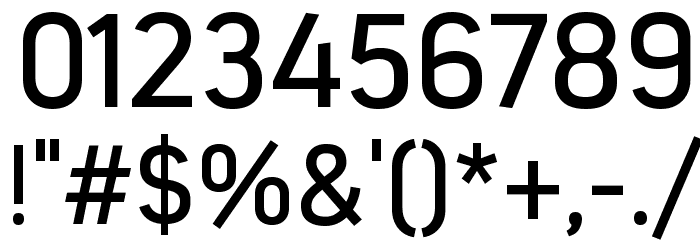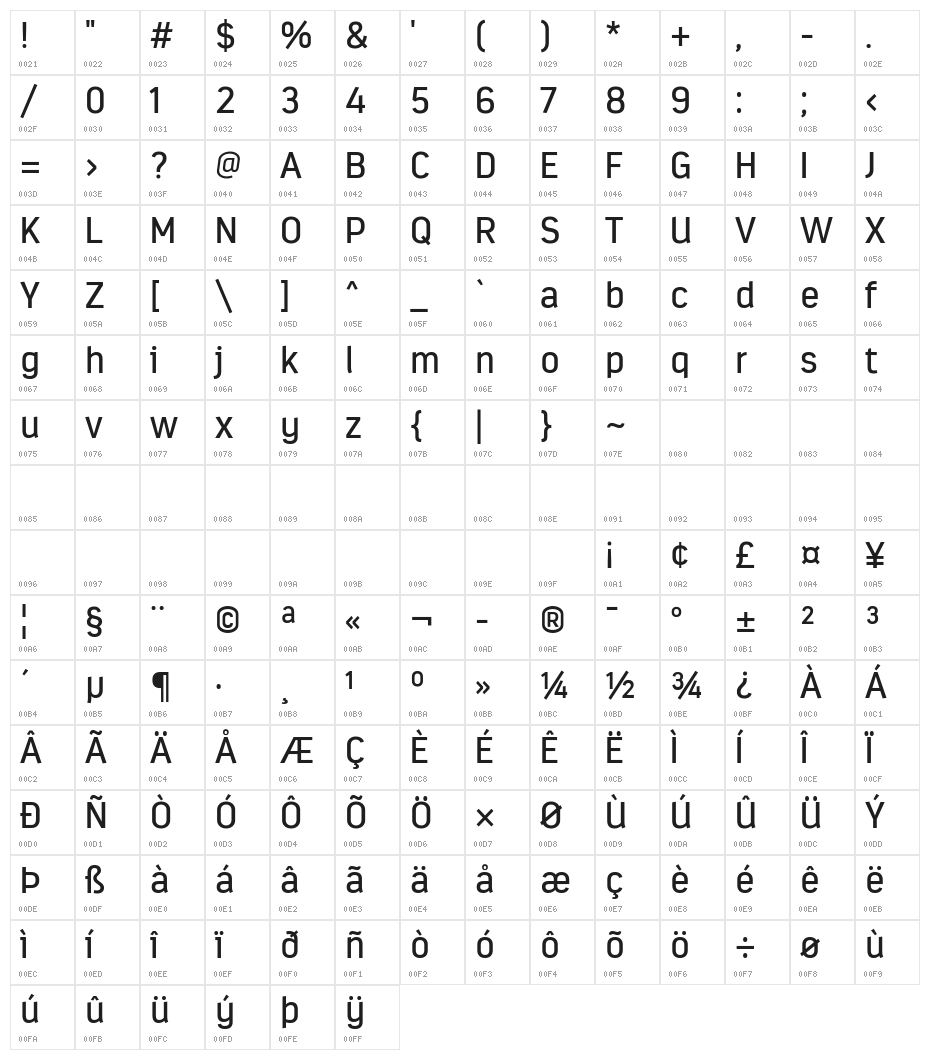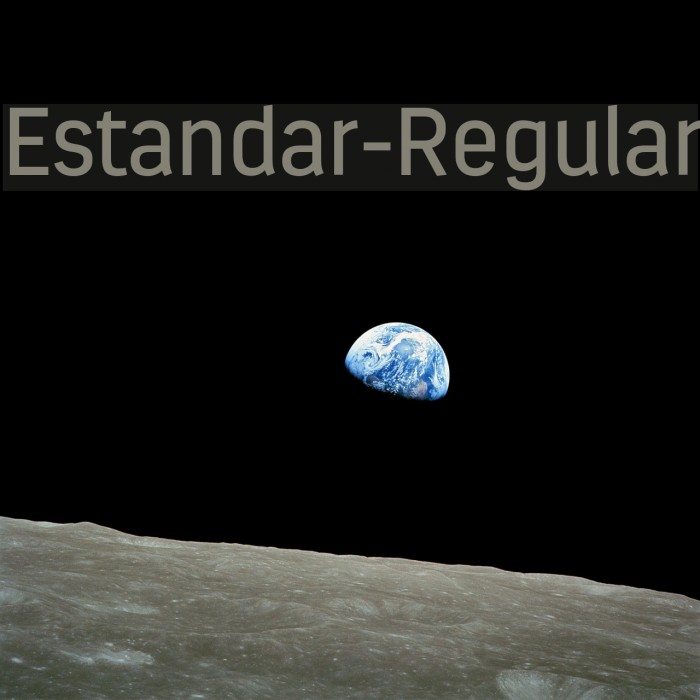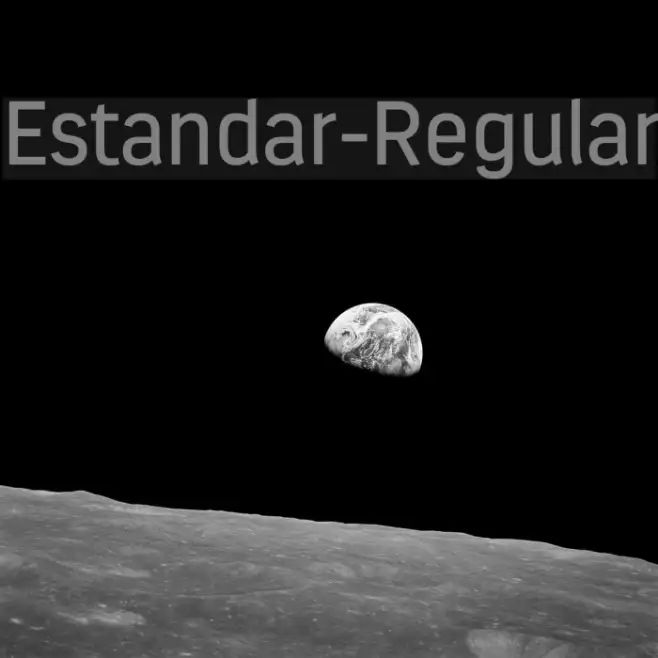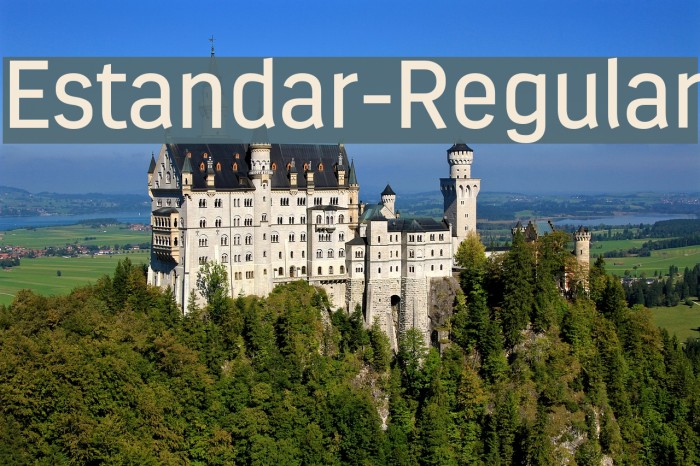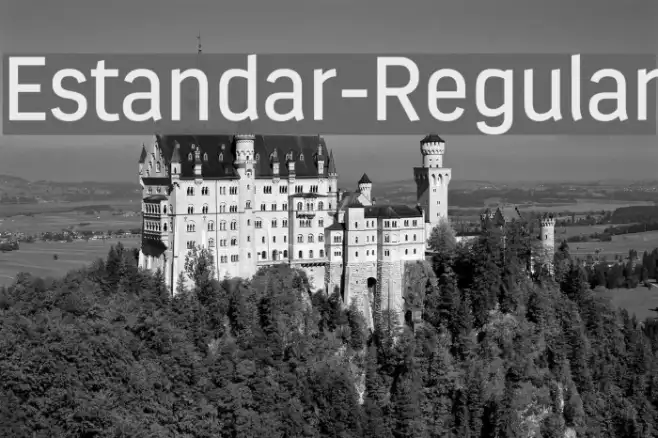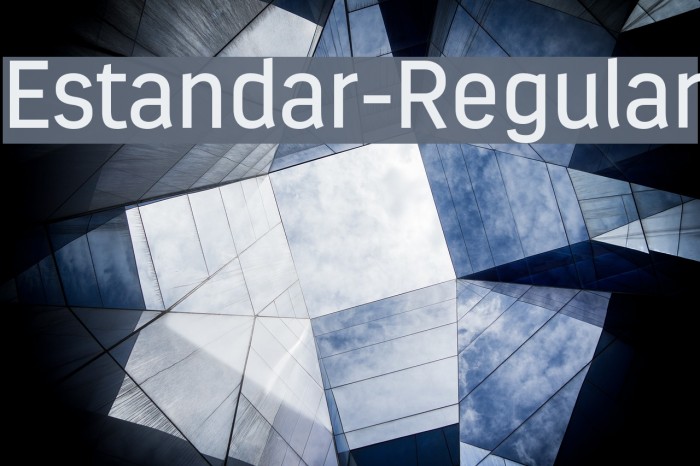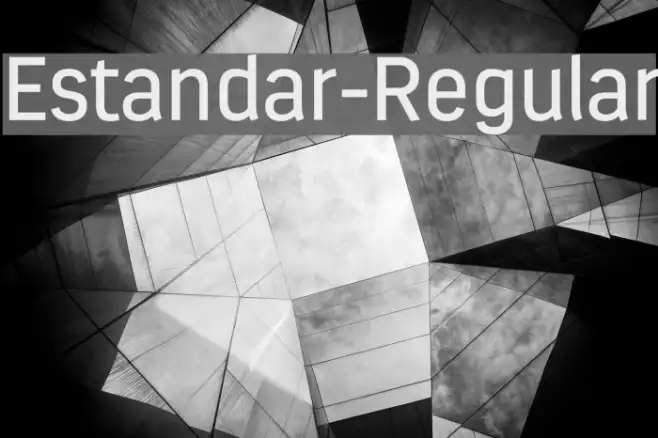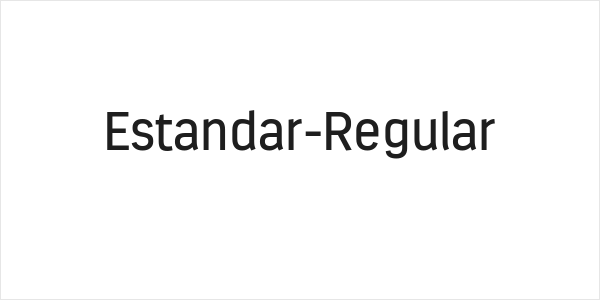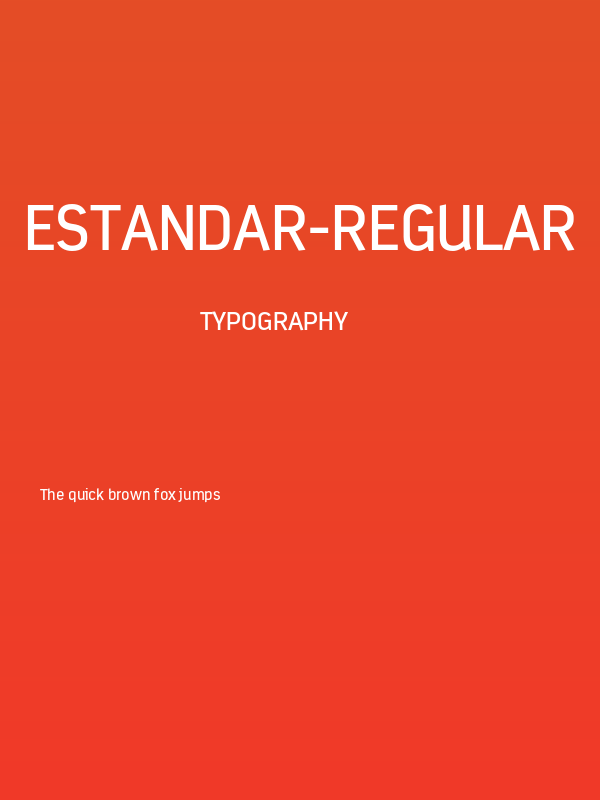
Estandar-Regular Font
Estandar-Regular Description
This font features a clean and modern sans-serif design, characterized by its straightforward and geometric letterforms. The uppercase letters are bold and uniform, while the lowercase letters maintain a consistent height and width, providing a harmonious appearance. The numerals are clear and easily distinguishable, making them suitable for various applications. Special characters are well-defined, adding to the font's versatility. Overall, the font exudes a contemporary and professional feel, making it ideal for digital and print media.
| Proposed Projects | Ideal for branding, web design, advertising, and editorial projects. |